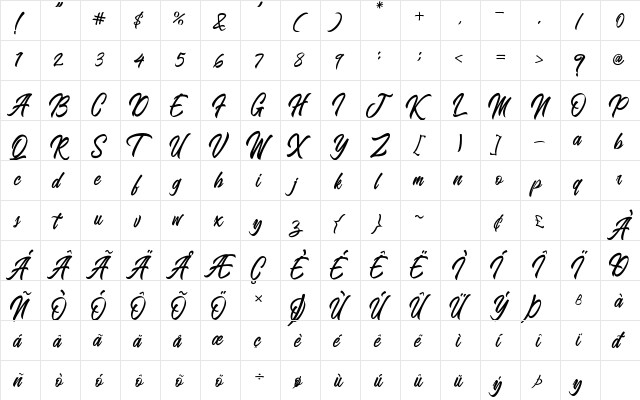
BlangkonScript Regular
| Foundry | Kotak Kuning Studio |
| Designer | Arif Dwi |
Design Context for BlangkonScript Typeface
BlangkonScript flows with the natural rhythm of handwritten lettering, making it ideal for designs that call for warmth and personal expression.
Font Pairing: Combine BlangkonScript with a simple geometric sans for maximum contrast — the tension between flowing curves and clean structure is a classic typographic pairing.
Pro Tip: Pair BlangkonScript with a clean sans-serif for supporting text. The contrast between fluid script and geometric structure creates an elegant typographic hierarchy.